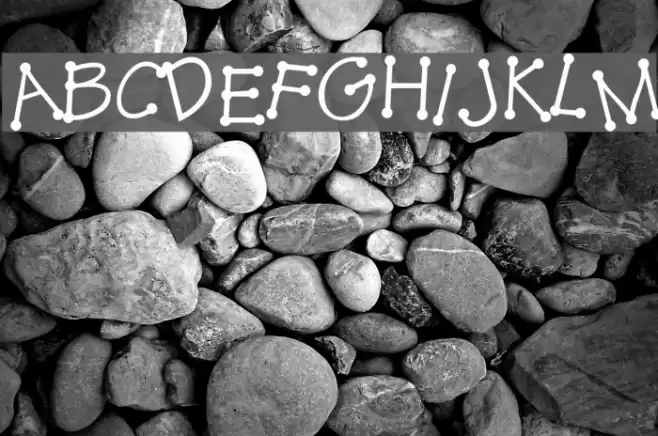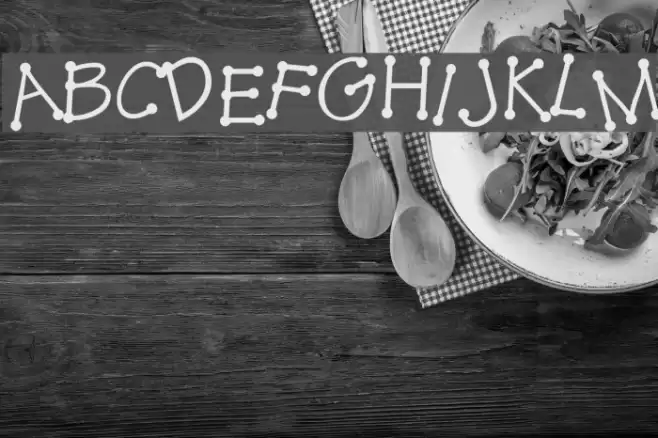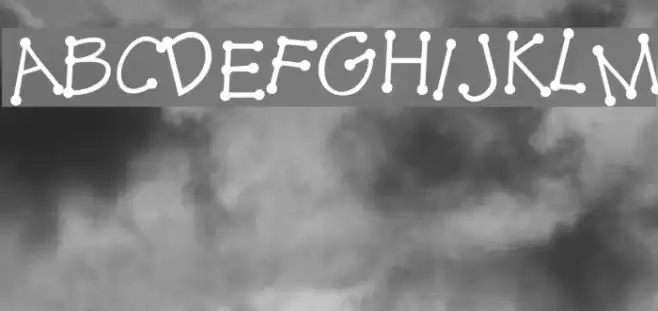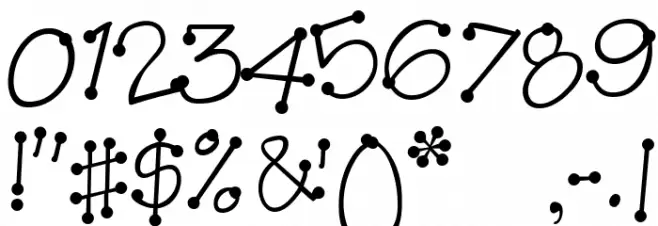
ThreadFun Italic Font
ThreadFun Italic Description
This playful and whimsical font features a unique design with dots connecting the ends of each character, giving it a fun, hand-drawn appearance. The letters are slightly slanted, adding a dynamic and lively feel. The strokes are consistent in thickness, providing a uniform look across all characters. The font includes both uppercase and lowercase letters, numbers, and a variety of special characters, making it versatile for different uses. Its distinctive style is reminiscent of a child's handwriting or a playful doodle, making it ideal for creative projects.
A playful, hand-drawn font with connected dots and a whimsical style from Uncategorized fonts.
- Proposed Projects: Ideal for children's books, playful branding, greeting cards, and creative posters.
- Overall Style: Whimsical, Playful
- Use Case: Headlines, Logos, Creative projects